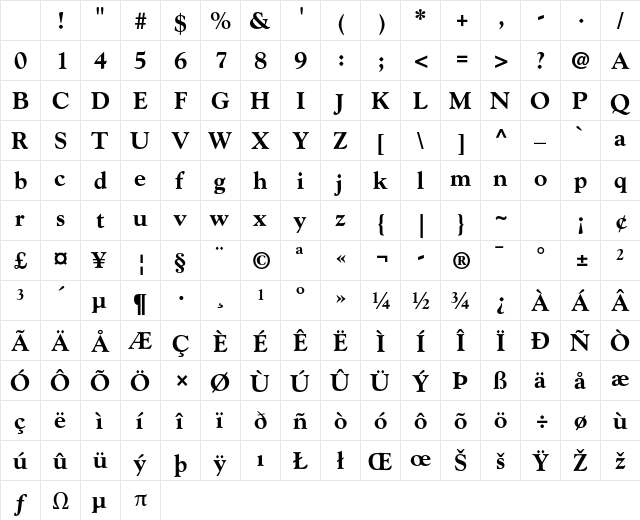
Goudy Std Extra Bold
Style: Extra Bold
Designer: Frederic W. Goudy, Morris Fuller Benton
Complete Goudy Std Extra Bold glyph index. Displaying only characters natively supported by Goudy Std Extra Bold font.
Design Context for Goudy Std
Goudy Std is a composed and adaptable typeface that performs quietly and consistently across a wide range of design contexts. Its bold stroke weight gives it real presence on the page.